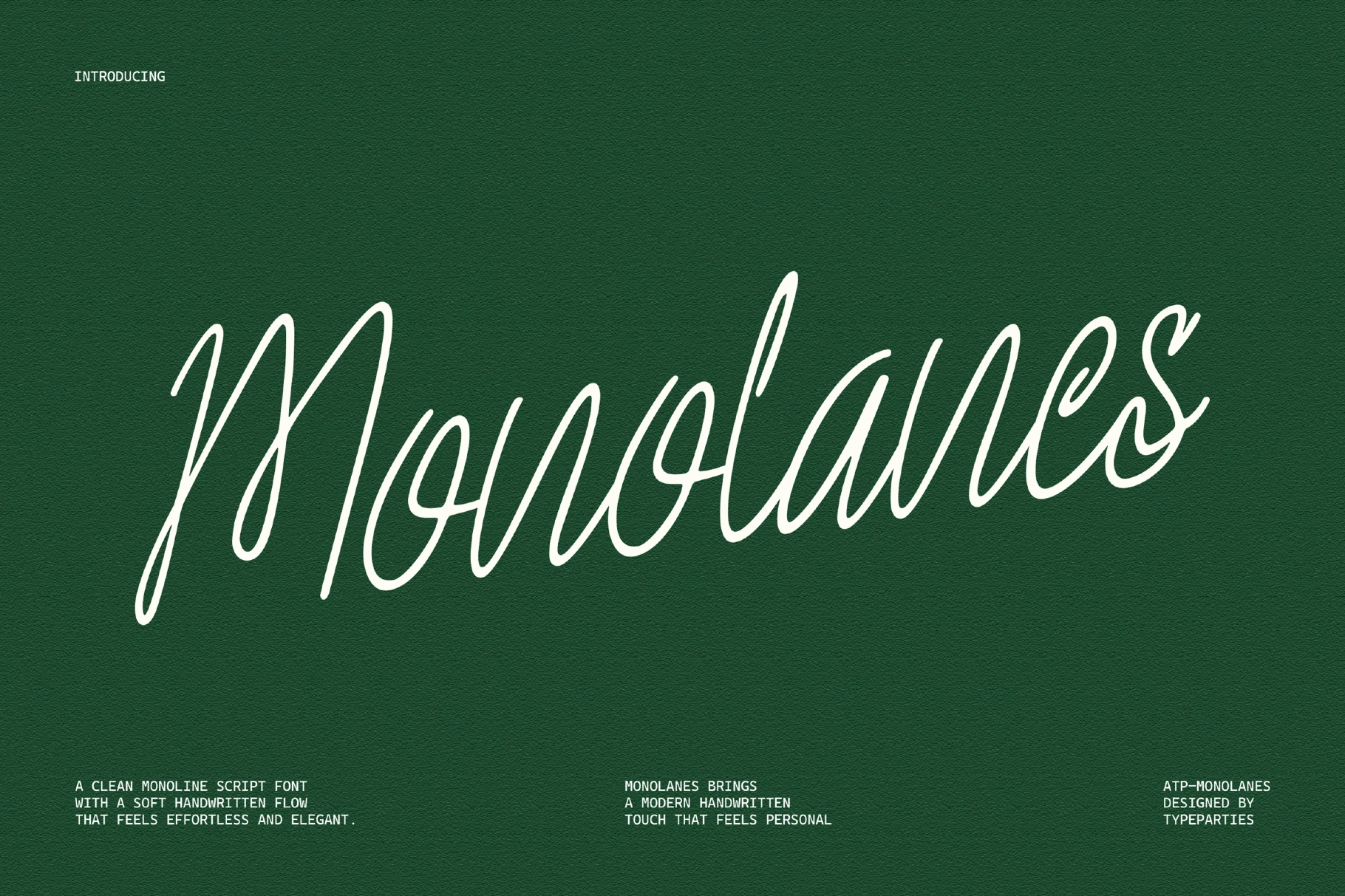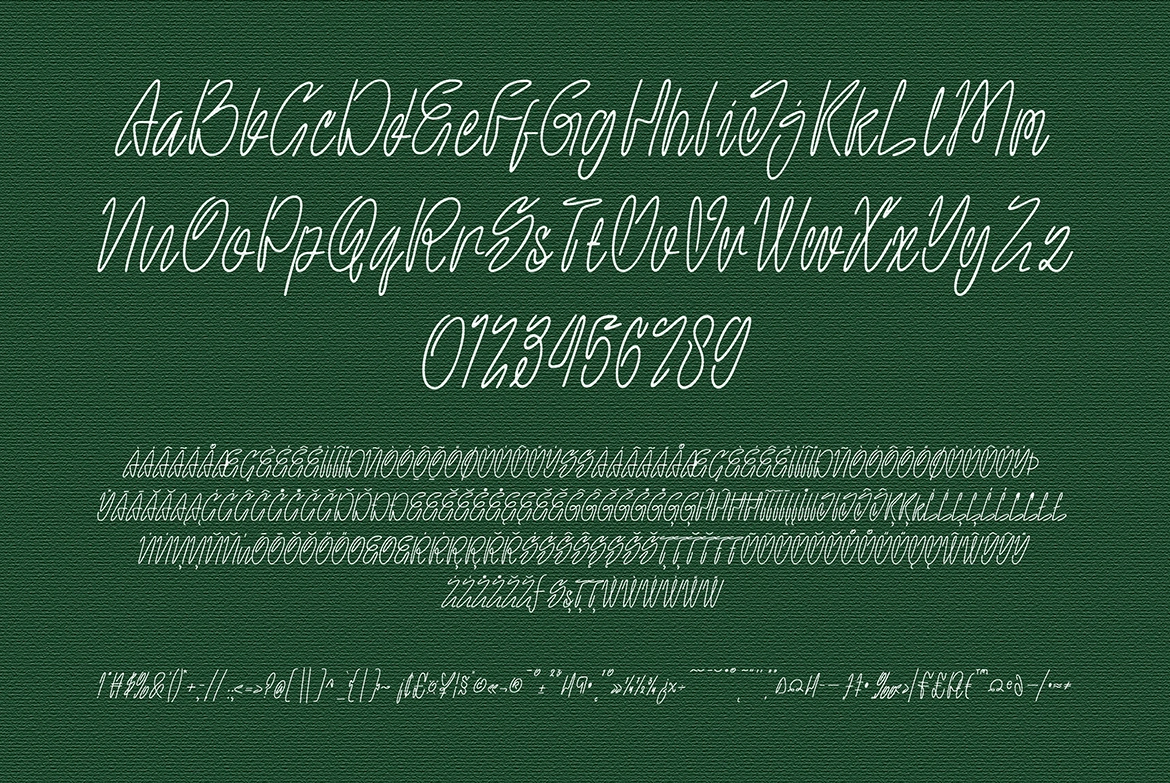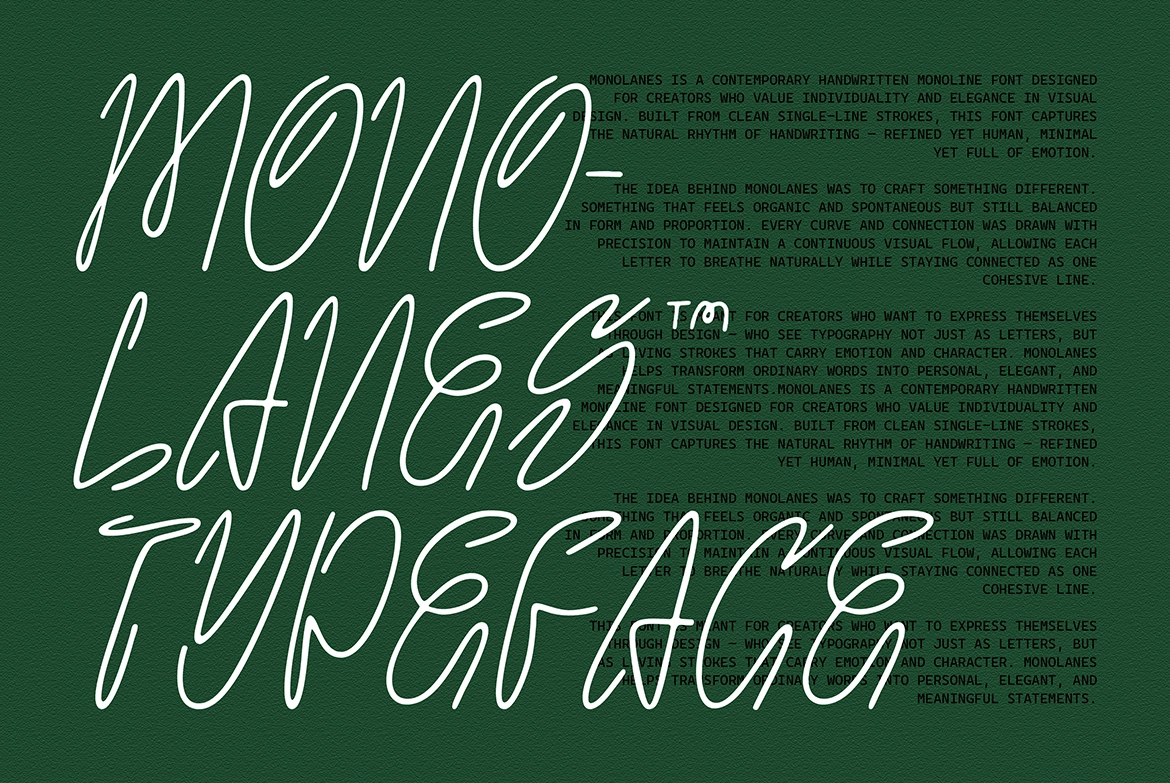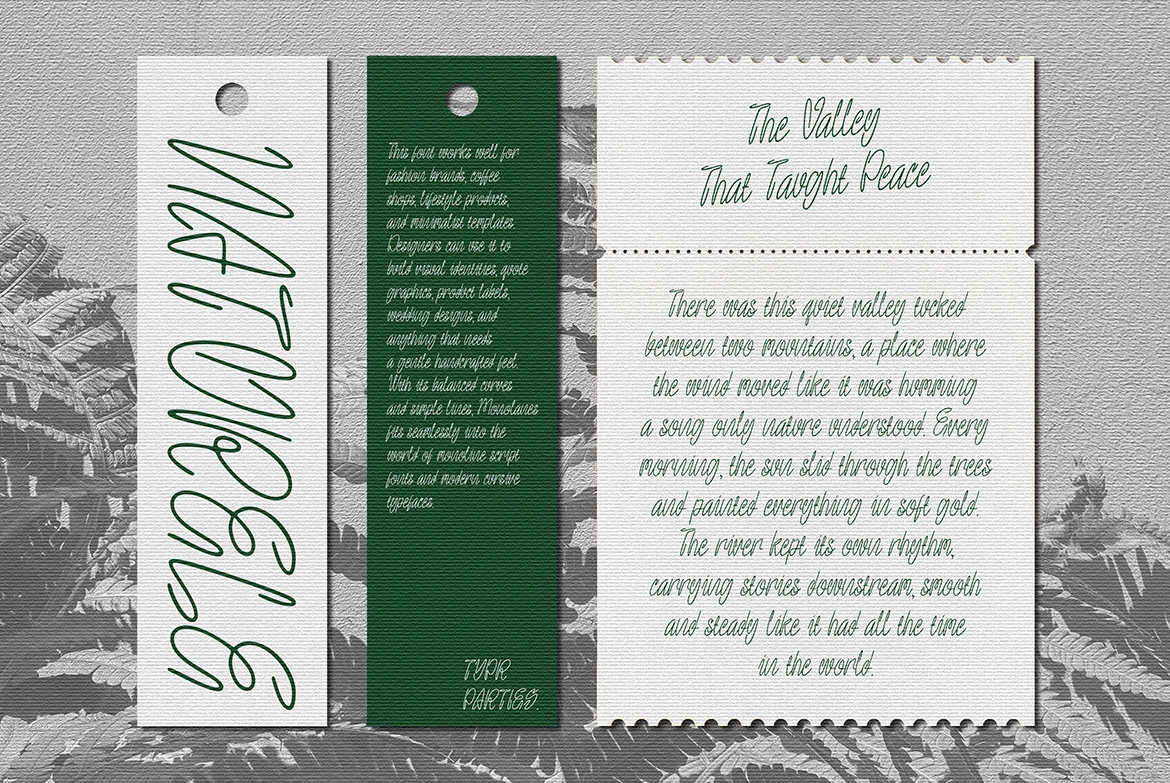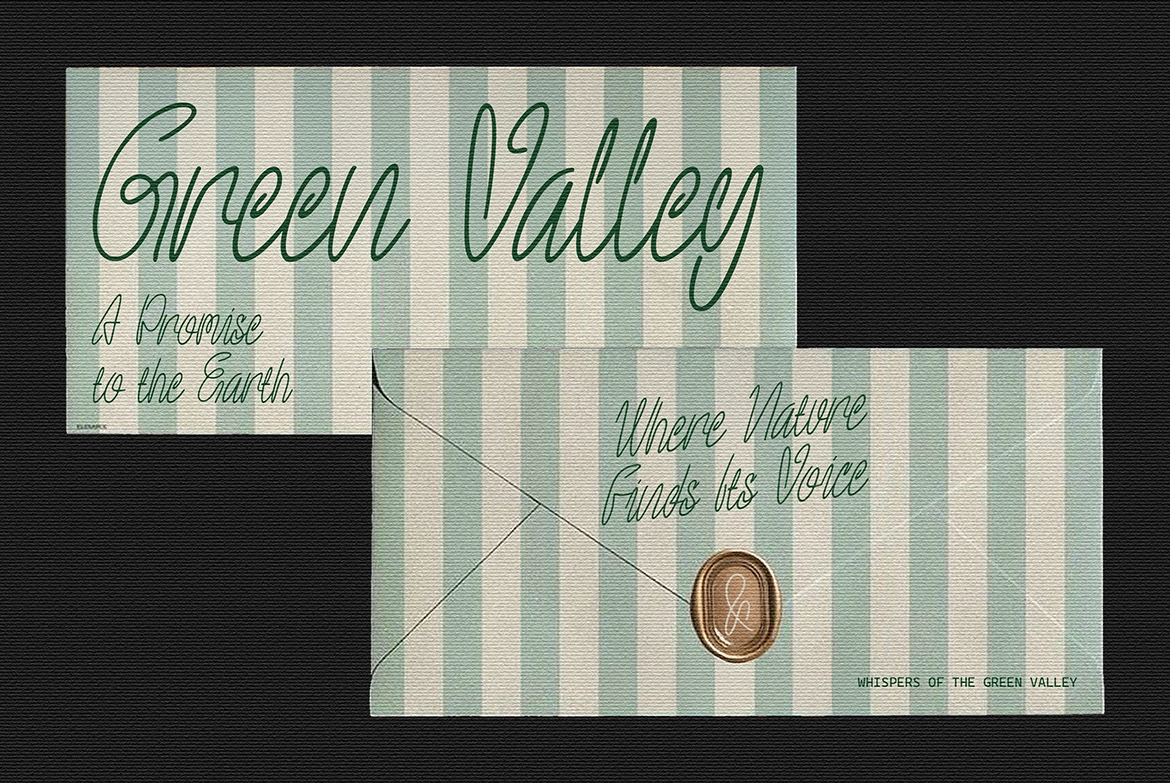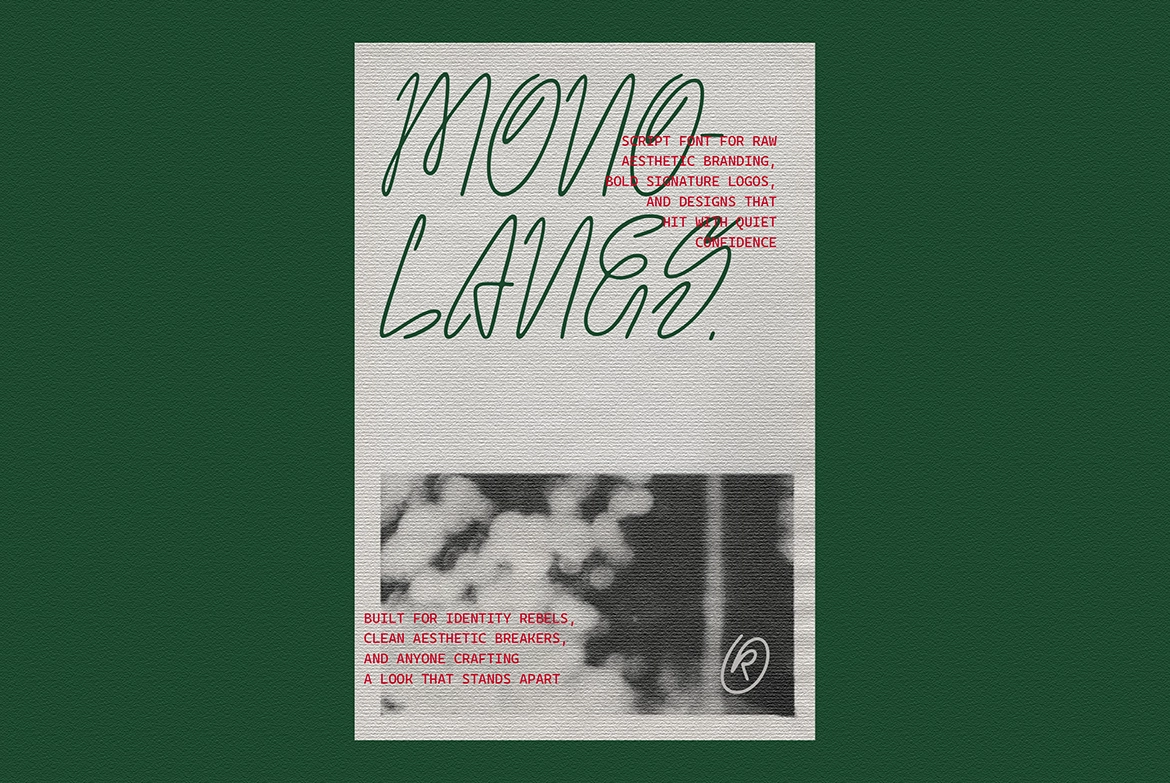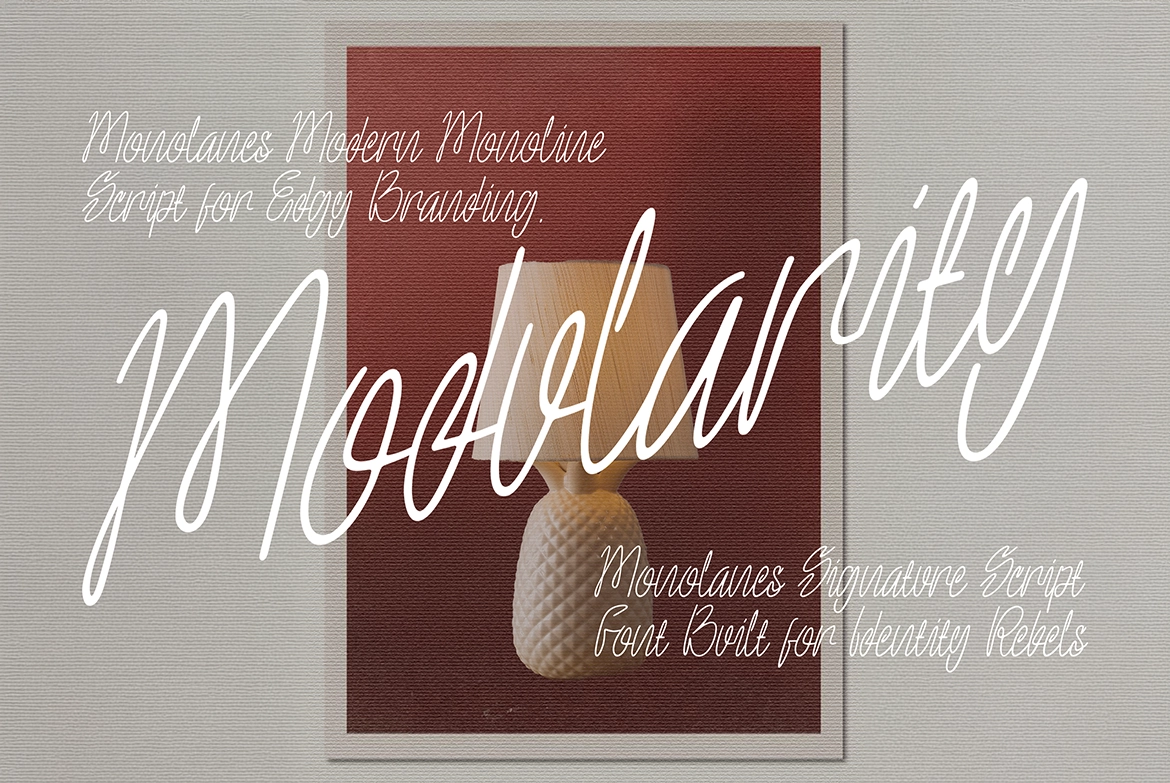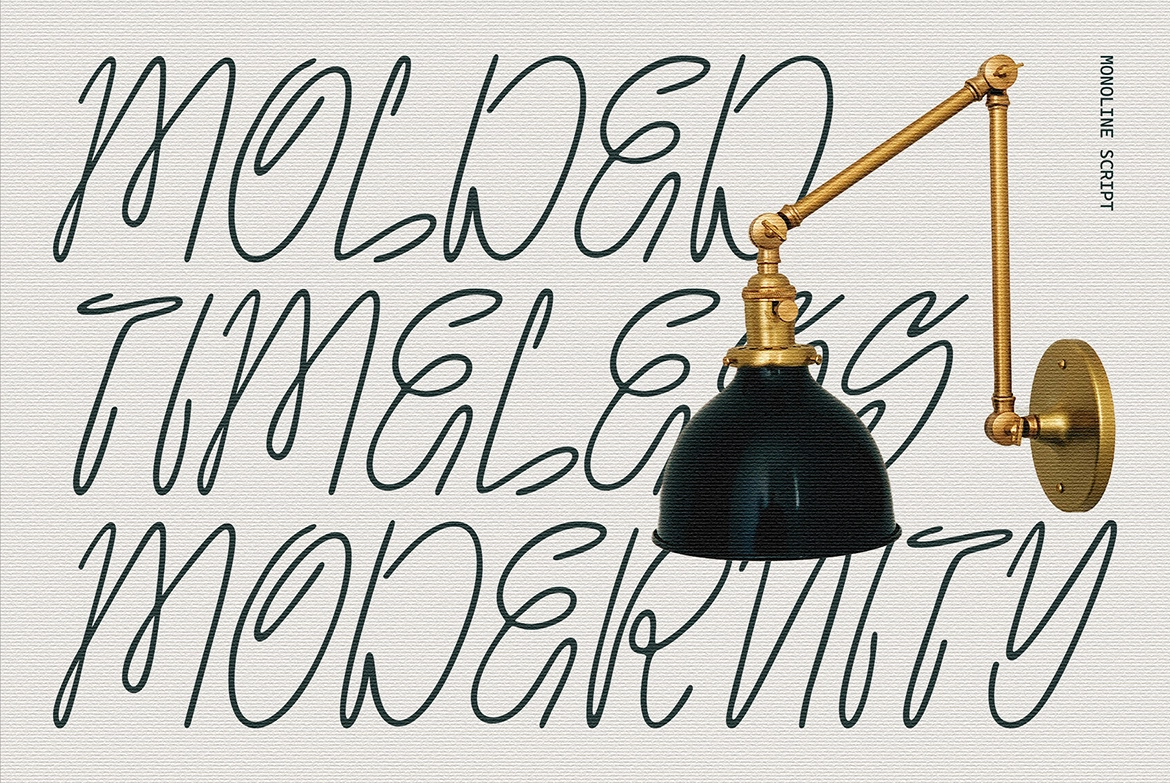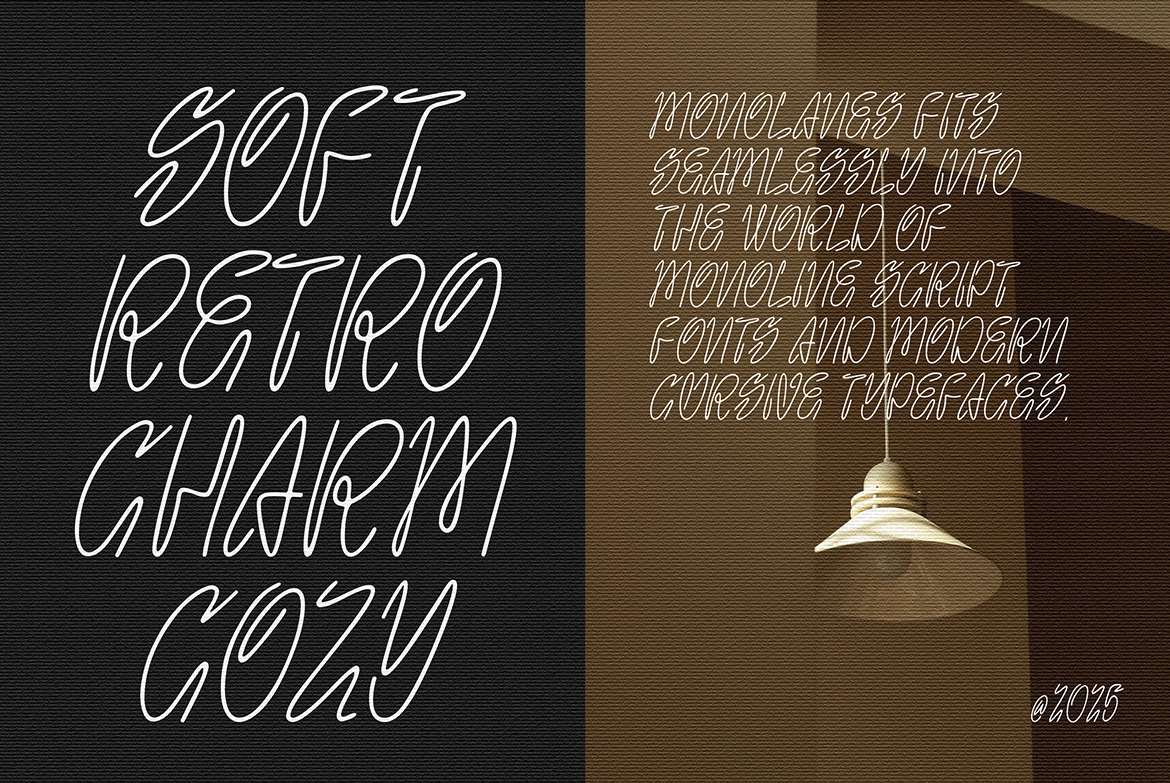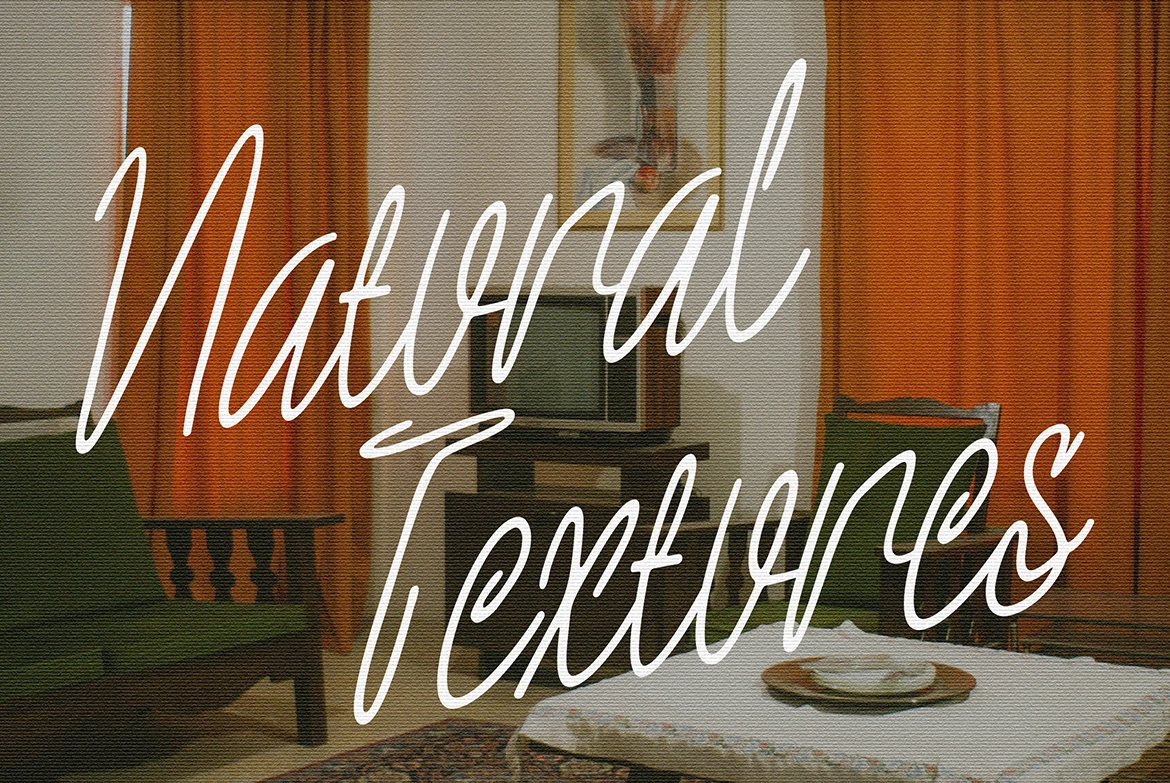
MonoLanes - Monoline Handwritten Script Font
ATP-MonoLanes
This monoline script font has a clean single-stroke look with tall loops, narrow letterforms, and a smooth handwritten rhythm. The thin white-line style gives headlines and signature marks a personal, elegant character without turning fragile or overly decorative.
Monolanes is made for logo design, boutique branding, signature marks, product packaging, wedding stationery, beauty labels, fashion editorials, social media posts, quote graphics, album covers, posters, café menus, and more.